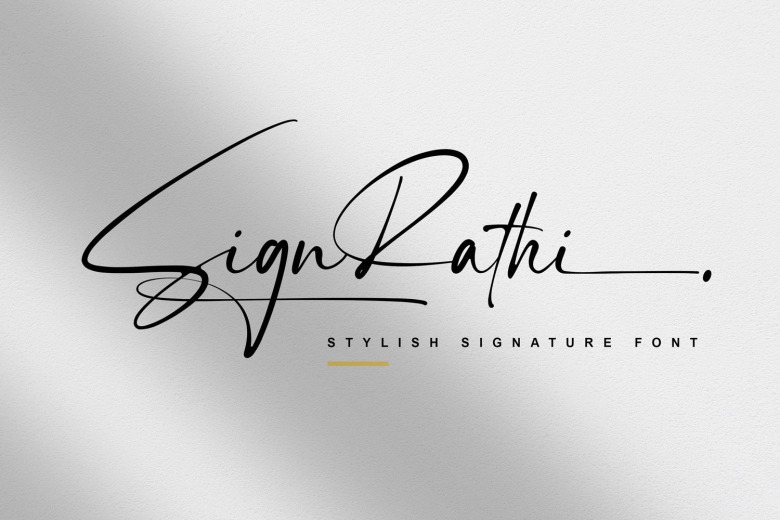
Sign Rathi Font
Sign Rathi is a thin and beautiful signature typeface, with a natural & stylish flow. Sign Rathi is perfect for many different project such as logos & branding, invitation, stationery, wedding designs, social media posts, advertisements, product packaging, product designs, label, photography, watermark, special events or anything.